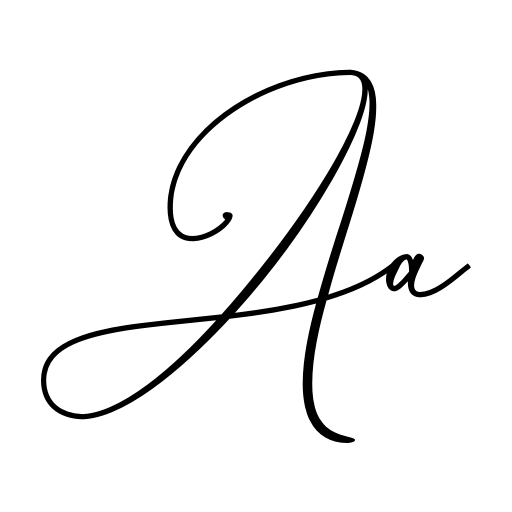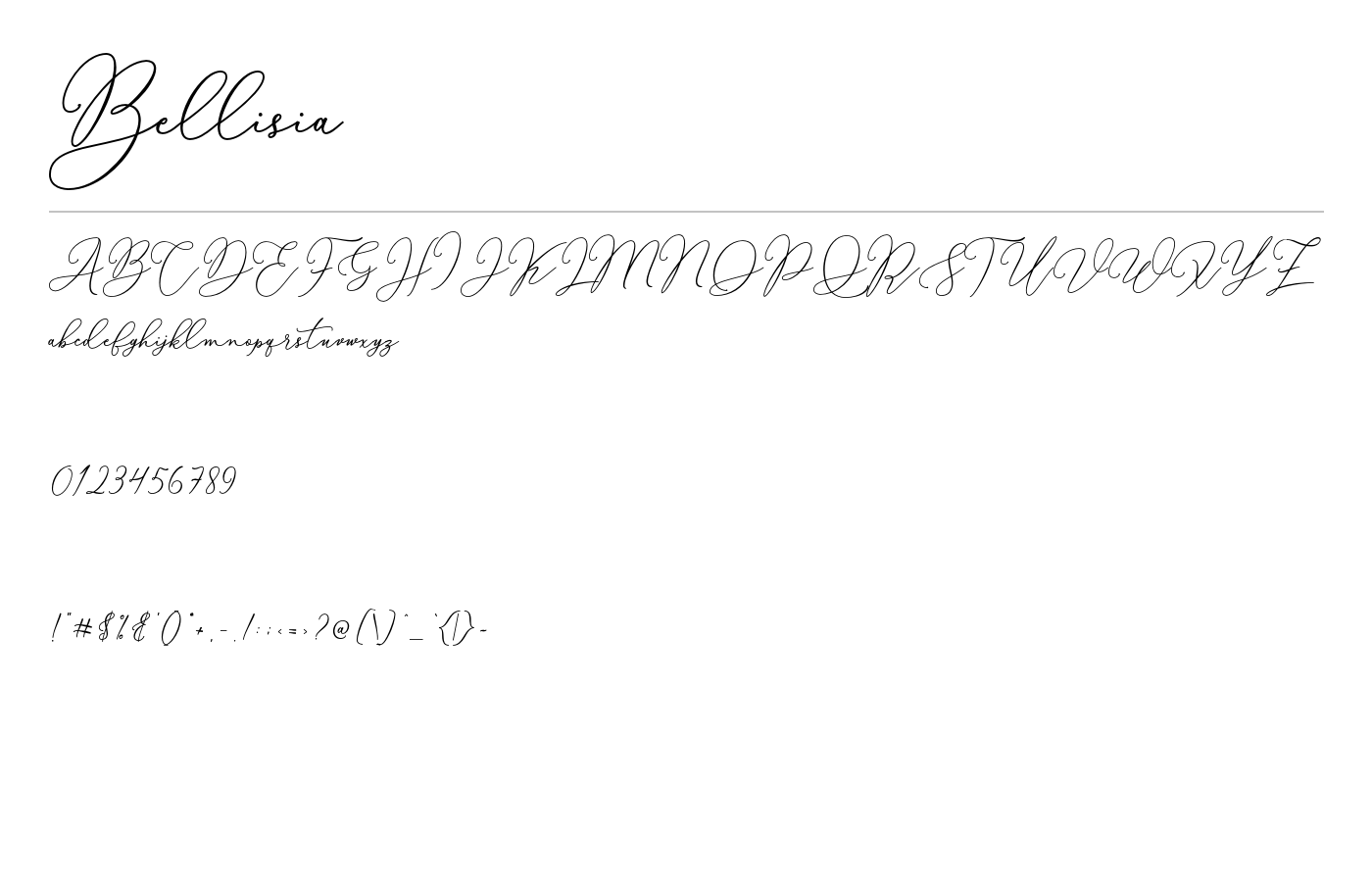
Bellisia is an elegant script font characterized by its delicate, flowing lines and graceful thin strokes, creating a refined and sophisticated appearance. Its cursive letterforms exude a sense of luxury and femininity, making it ideal for wedding invitations, fashion branding, and high-end editorial designs where a touch of classic charm and personal flair is desired.
Bellisia Font
About Bellisia Font